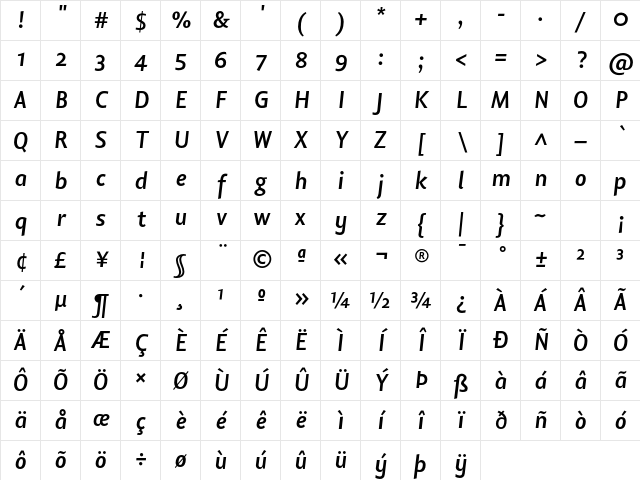
Lisboa Sans OSF Bold Italic Free Font
Lisboa Sans OSF Bold Italic
Design Context for Lisboa Sans OSF
Lisboa Sans OSF is a composed and adaptable typeface that performs quietly and consistently across a wide range of design contexts. The slanted form adds forward momentum and visual energy. Its bold stroke weight gives it real presence on the page.